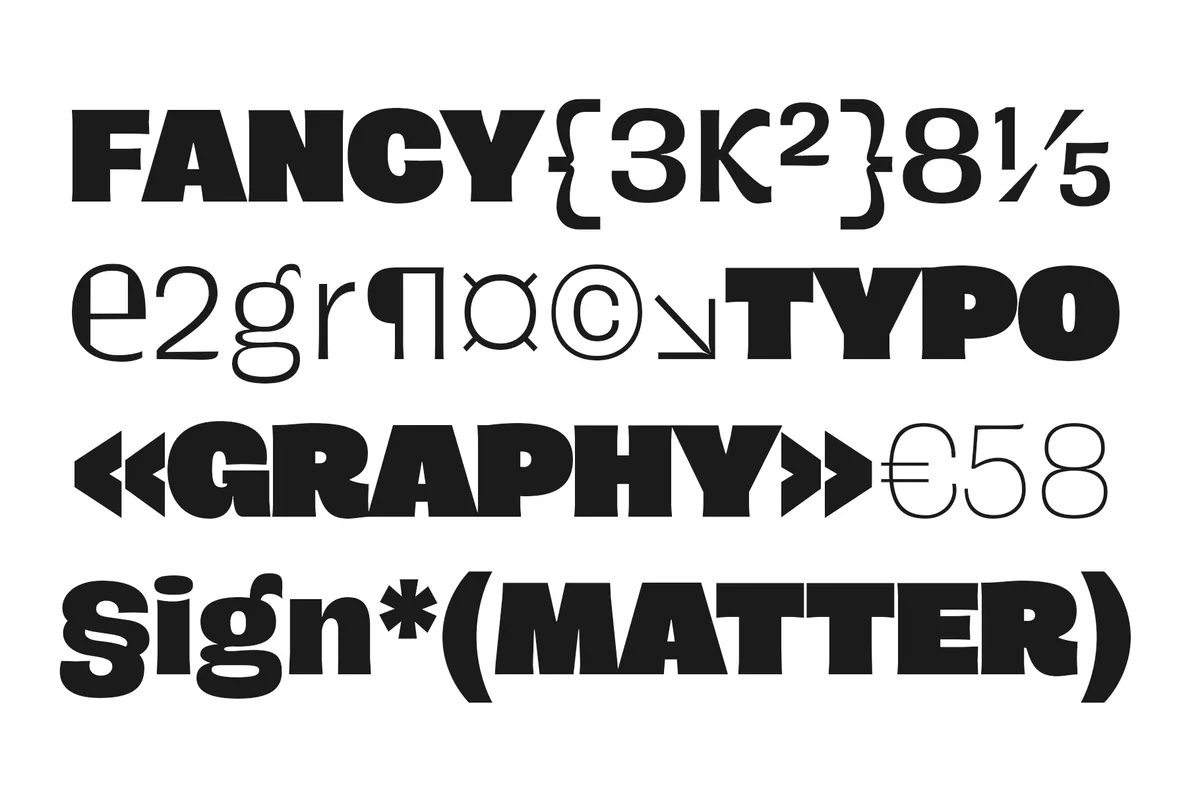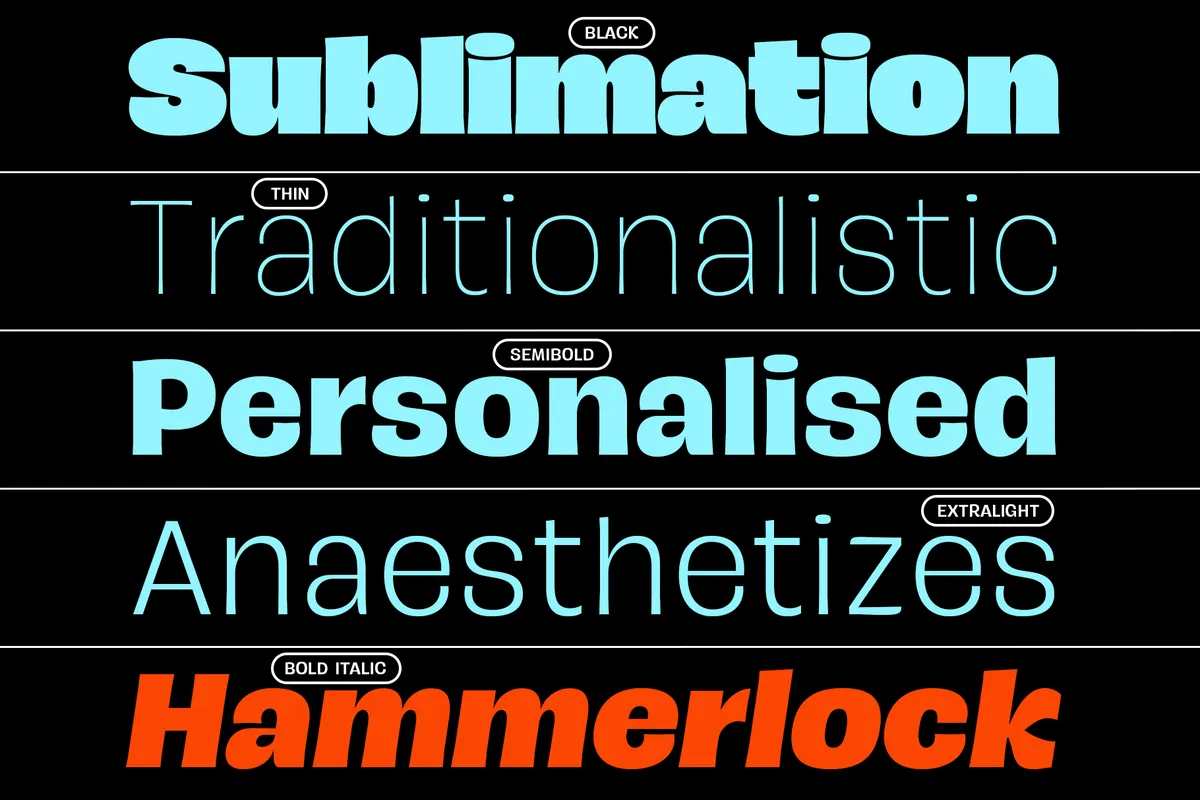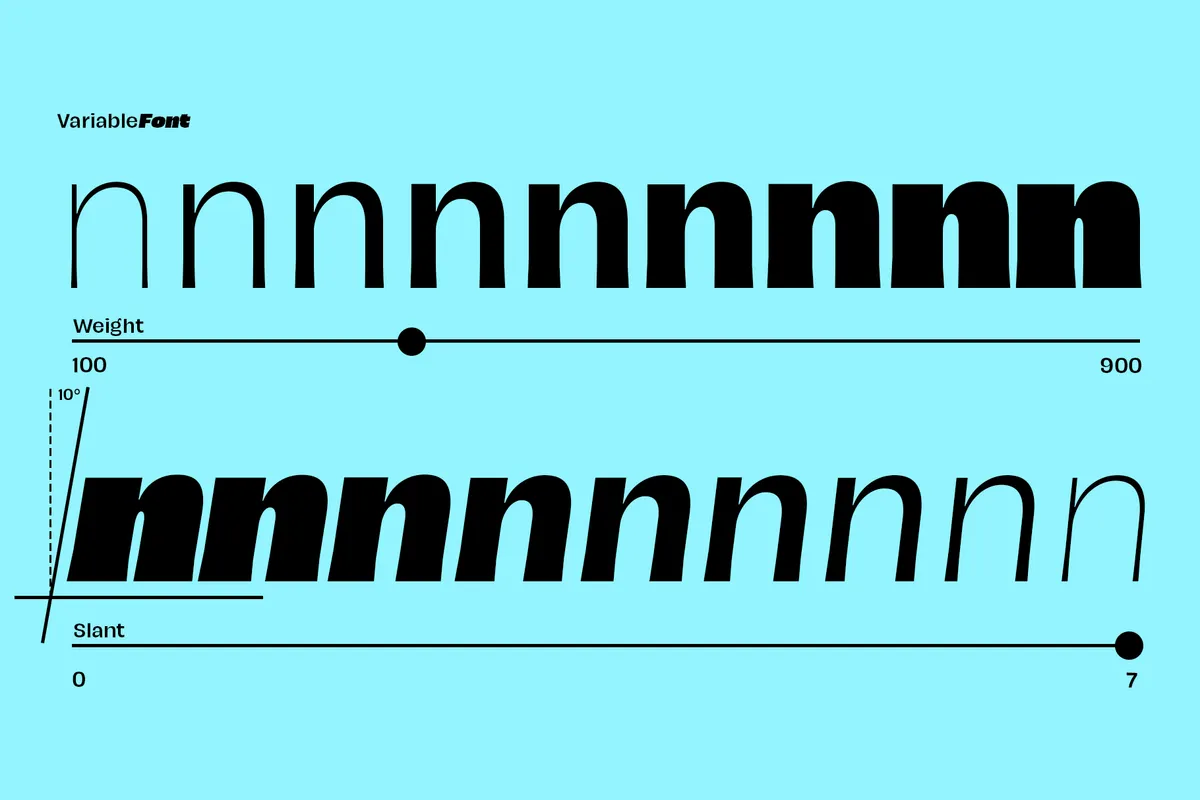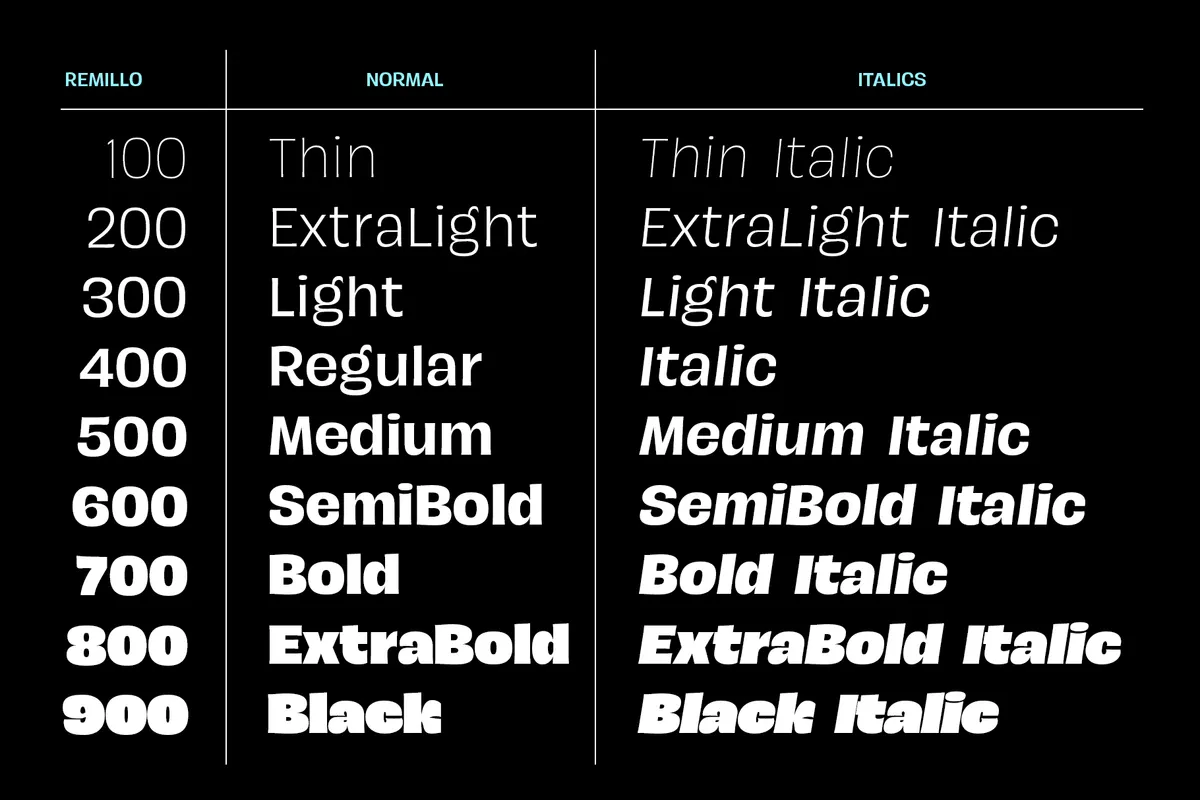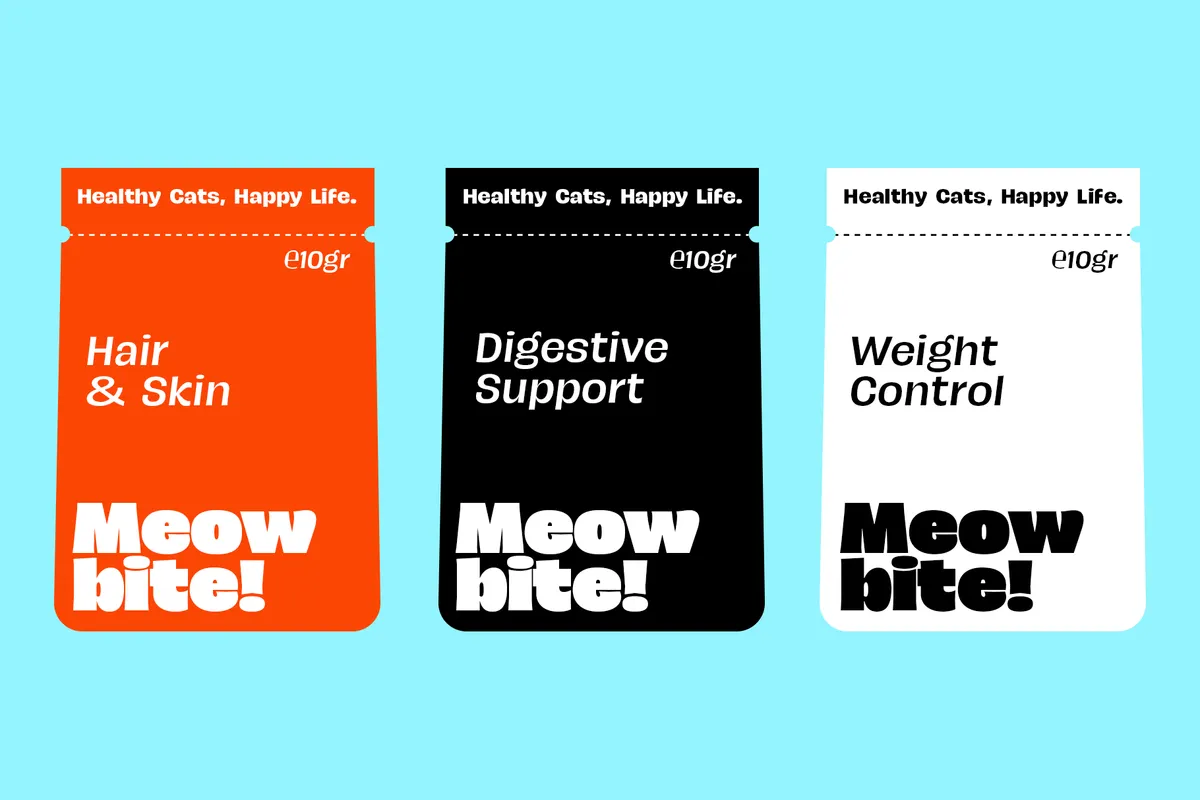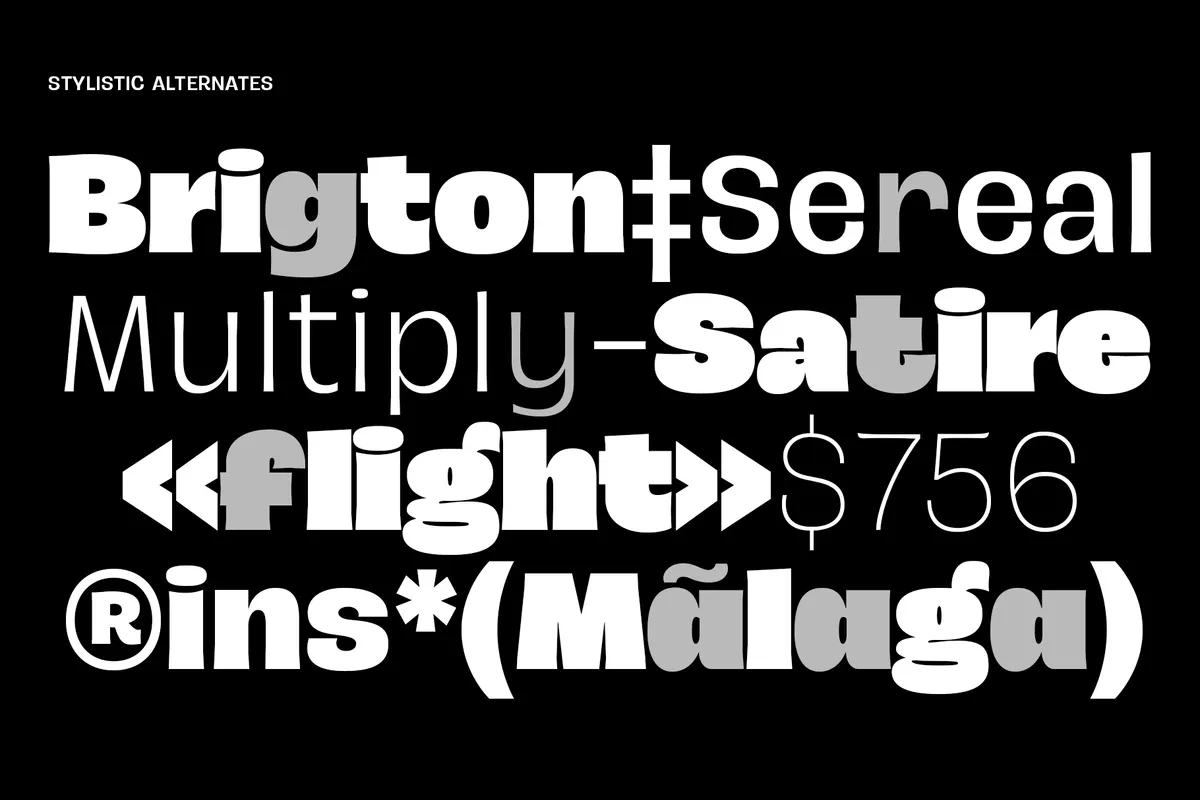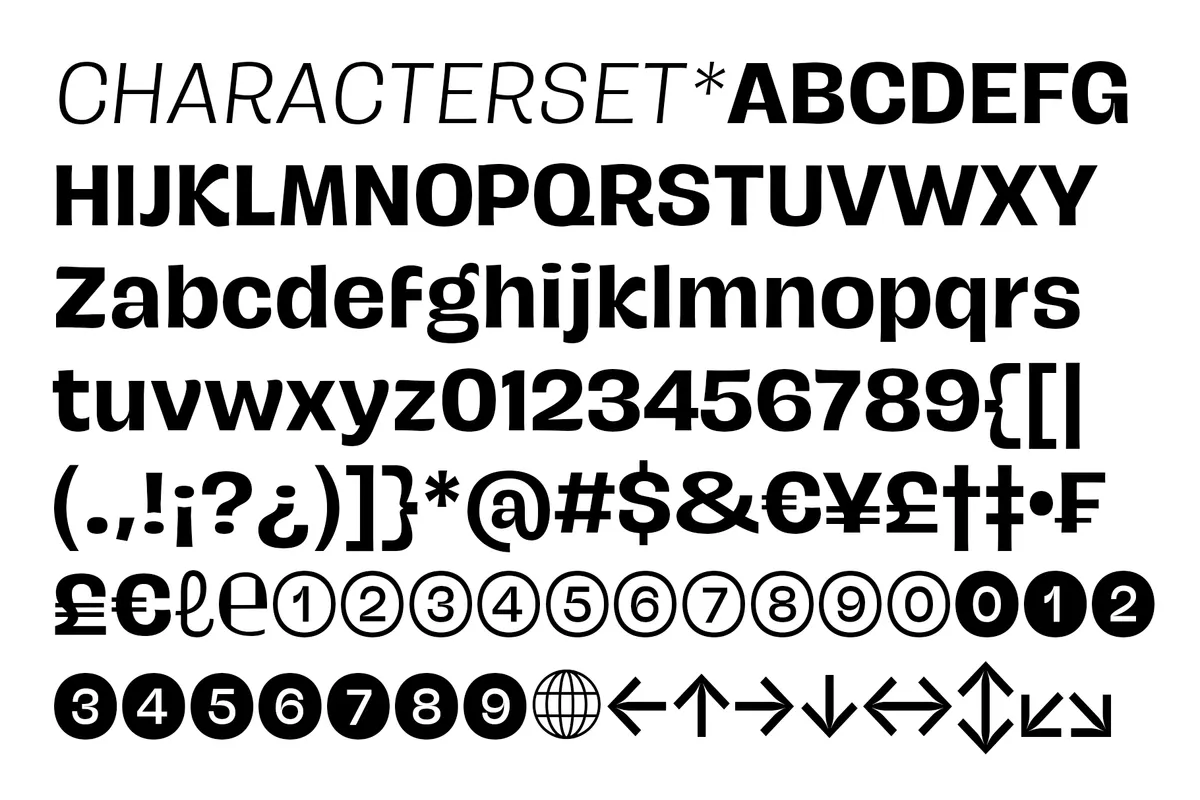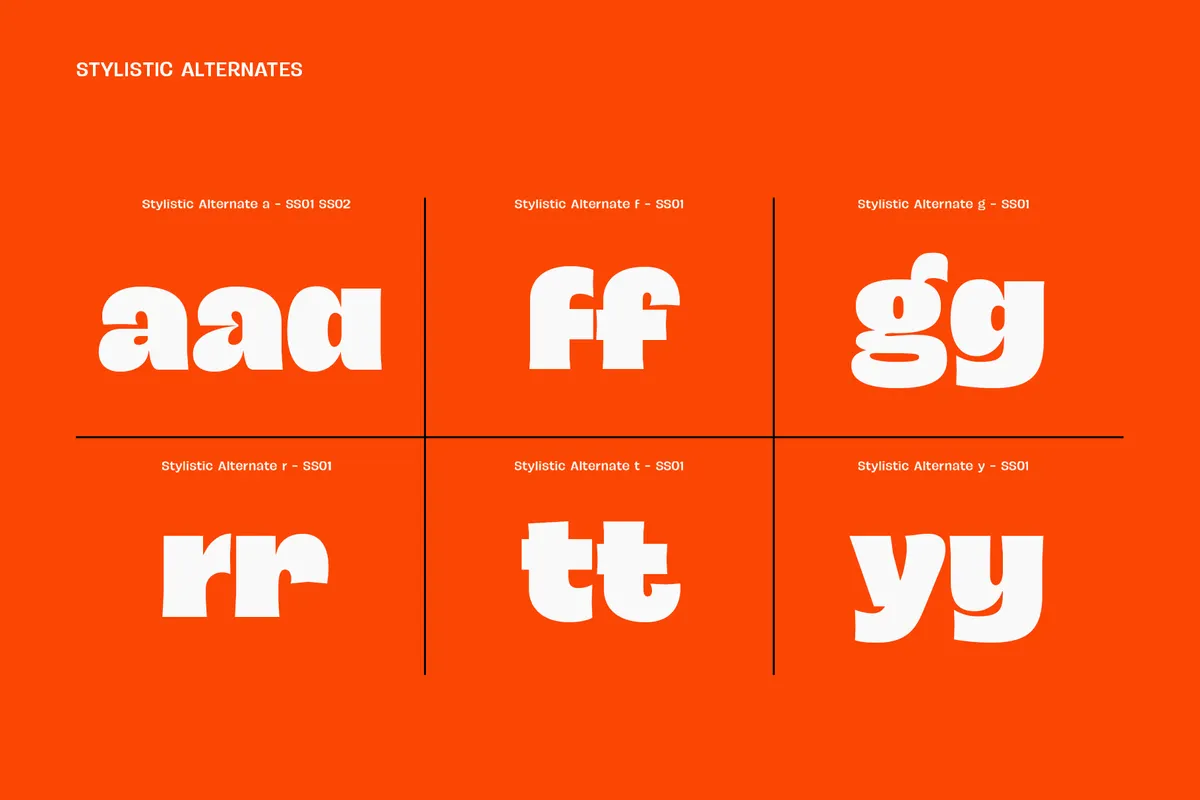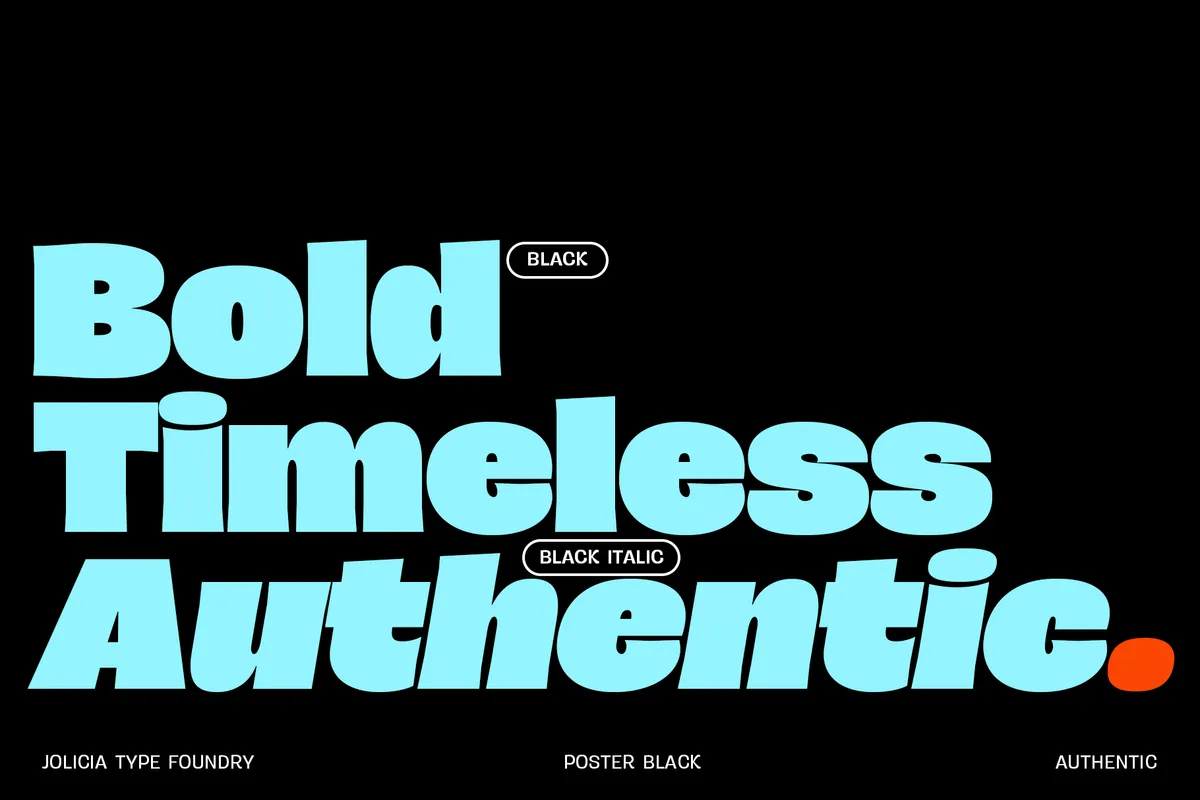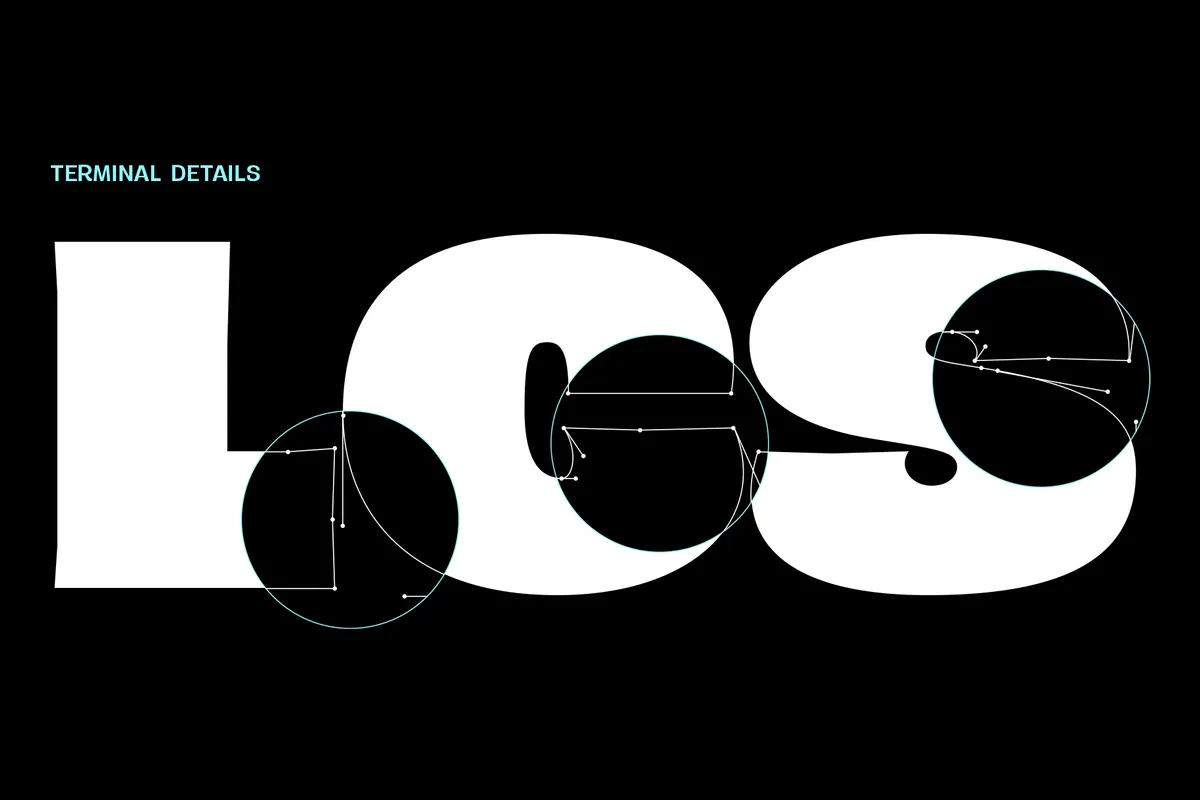
JT Remillo - Humanist Sans Serif Family
JT Remillo is a humanist sans serif font with calligraphic stress kept low and open, so the n and the a still show the angle of a broad pen under a clean outline. At Black the curves swell and the counters tighten, and the family starts to read as a display face.
Nine weights, matching italics and a variable file with weight and slant axes let one family cover both the headline and the small print. Two stylistic sets bring alternate a, g, r, t and y, and the figures come with fractions, superiors and inferiors. Use it for supplement and wellness packaging, editorial layouts, annual reports, app interfaces, museum signage, and brand identity systems.
- 18 styles: Thin, ExtraLight, Light, Regular, Medium, SemiBold, Bold, ExtraBold, Black, each with an Italic;
- variable file with weight and slant axes;
- uppercase & lowercase;
- numerals, punctuation & symbols;
- two stylistic sets and alternates for a, f, g, r, t and y;
- fractions, superiors, inferiors and ordinals;
- full Latin Extended-A, covering Central and Eastern European languages;
- 500 glyphs per style.